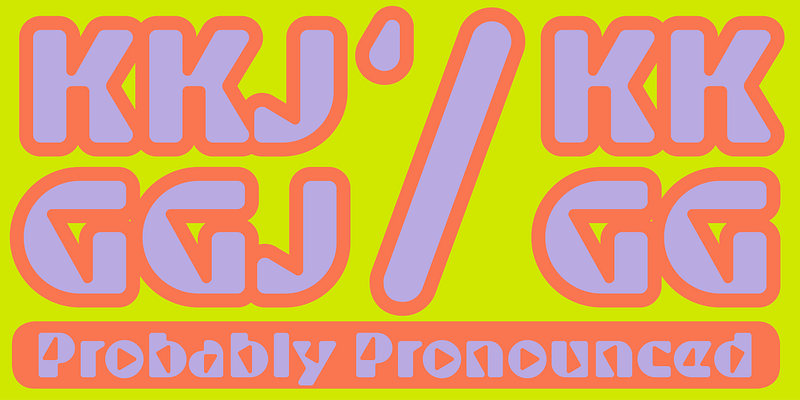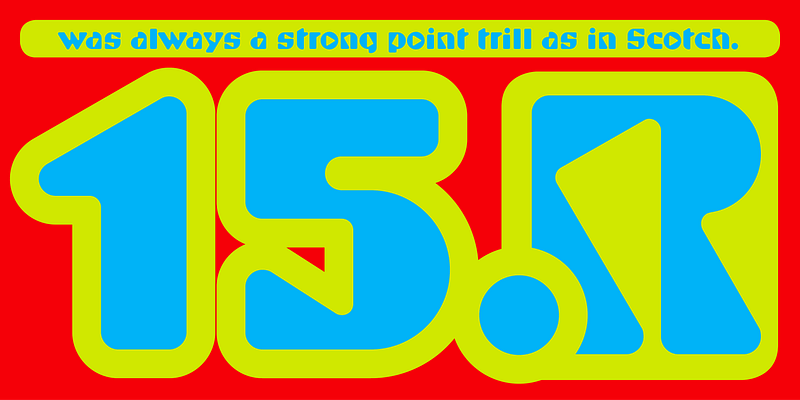
A few years ago when Joachim Müller-Lancé was doodling shapes on paper, he made the following observation: “My sketches revealed how letterforms can be perceived not only as black strokes on a white background, but also as shapes punching through one another.” Thus was Shuriken Boy born. Seen alone, many of its characters don’t look like letters at all; only their combination indicates text. It’s a futuristic look often seen in Japanese Manga comics and high-tech graphics. In fact, the name Shuriken Boy was inspired by William Gibson’s sci-fi novel, Neuromancer, in which a star-shaped Ninja weapon - a shuriken - appears as the hero’s talisman. The dynamic, triangular characters of Shuriken Boy are certain to add dramatic flair to high-tech tool or product packaging, toys and games, book titles, clothing labels, and computer user-group logos. U.S. Patent Des. 410,025.